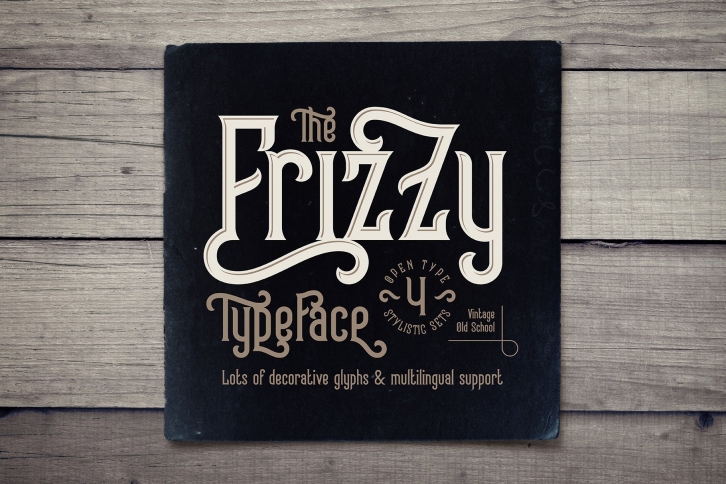
Frizzy is a uniquely designed and highly detailed display font. It is defined by smooth curves and is perfect for fashion branding or editorial designs. Add it confidently to your projects, and you will love the results.Â